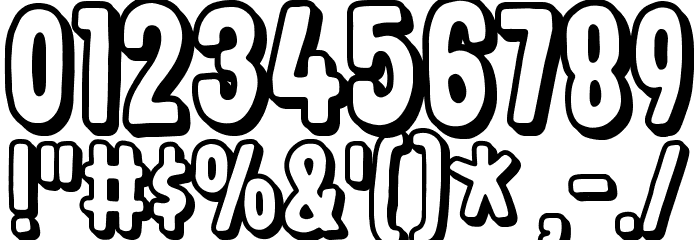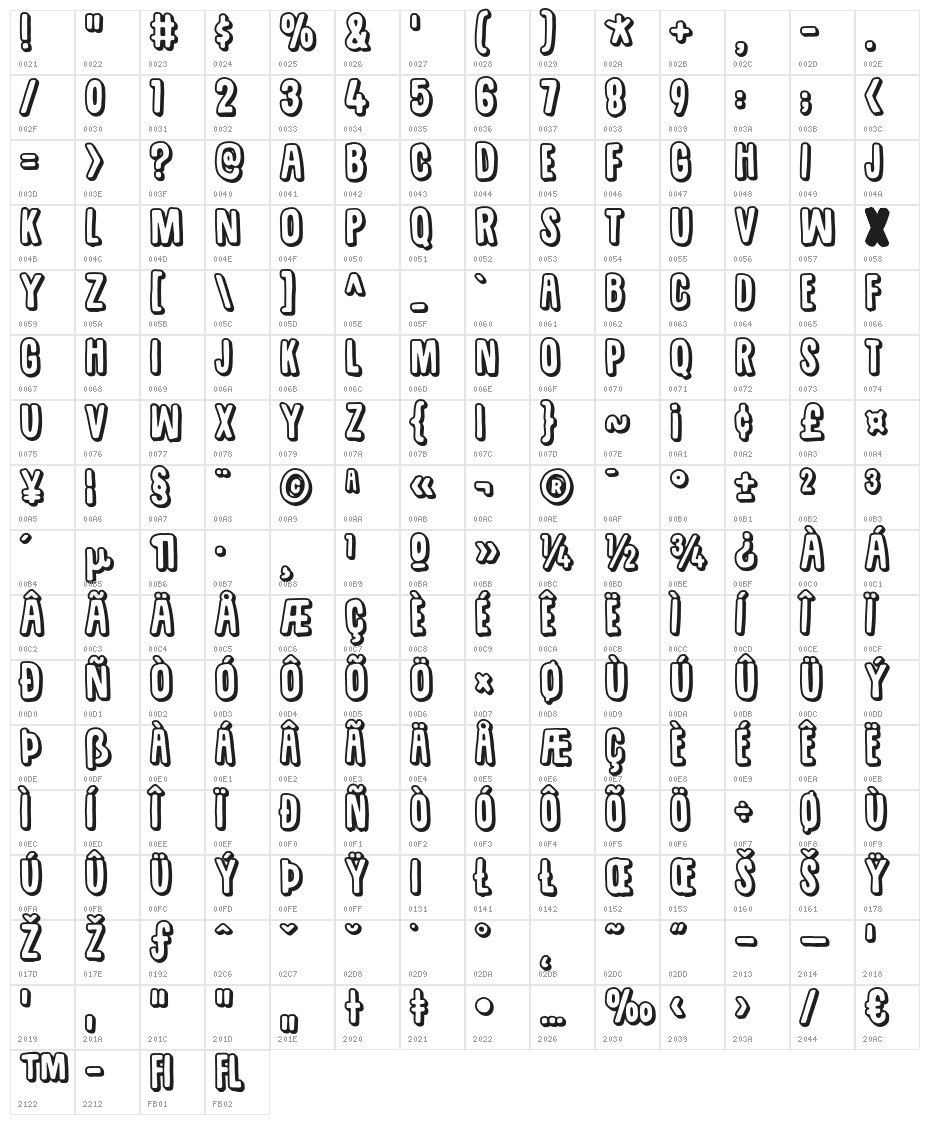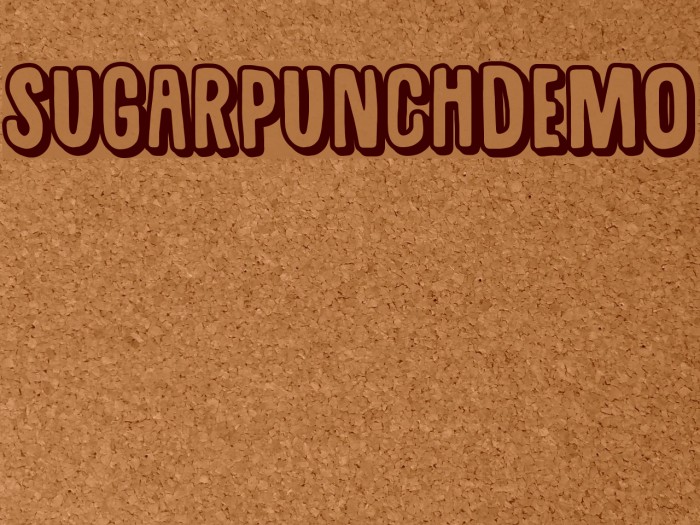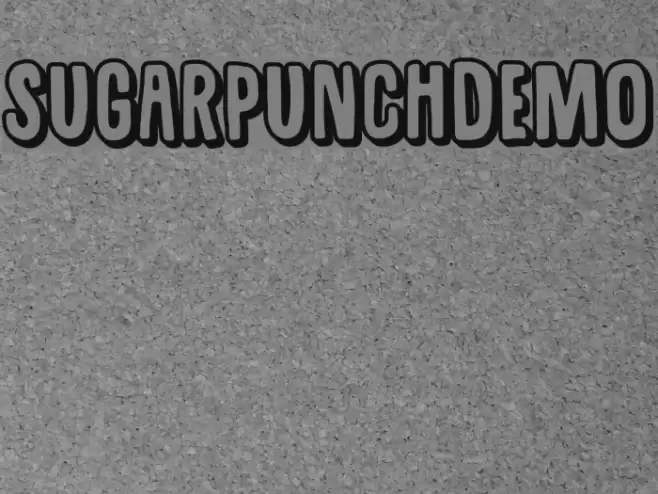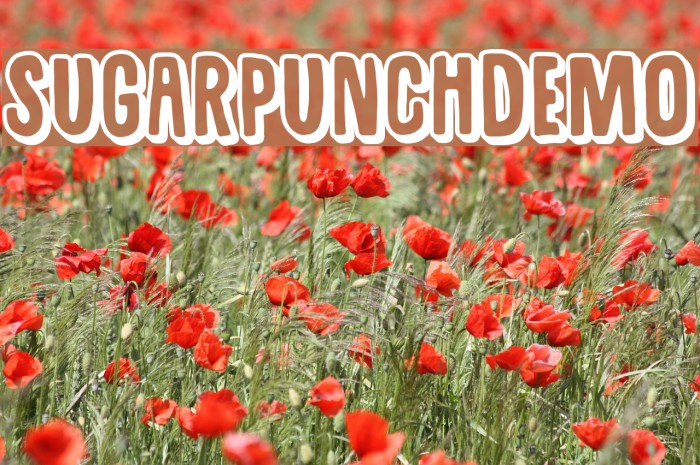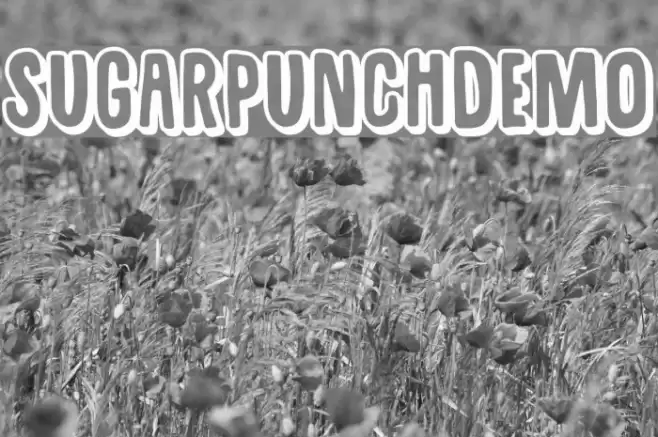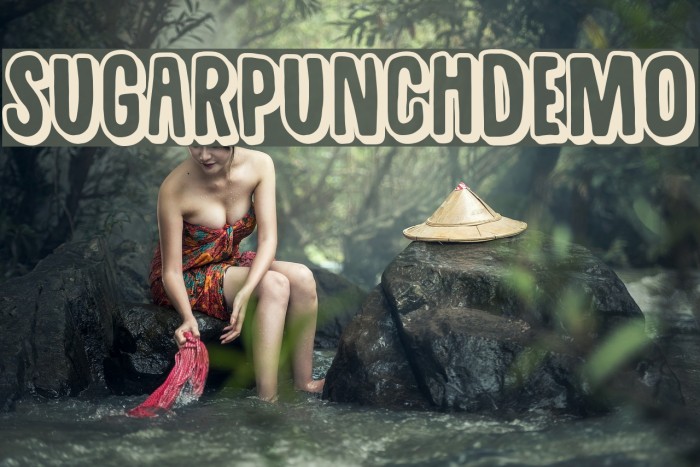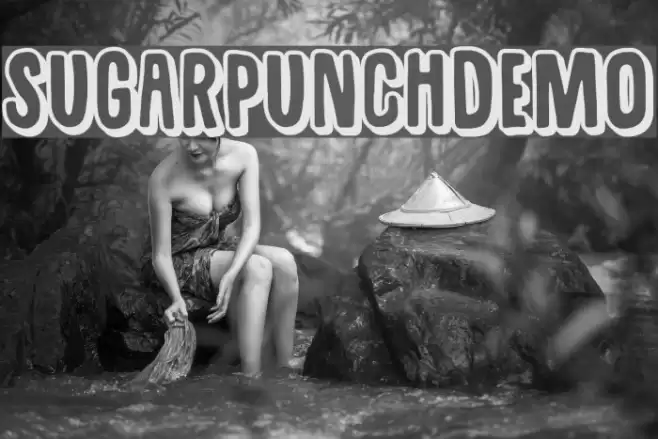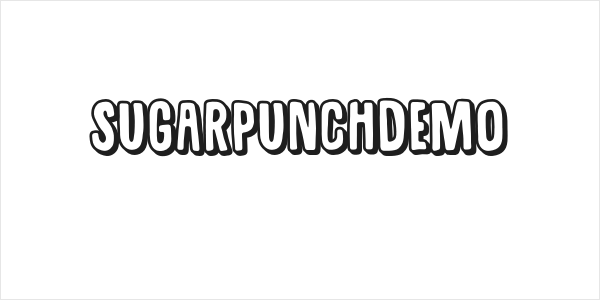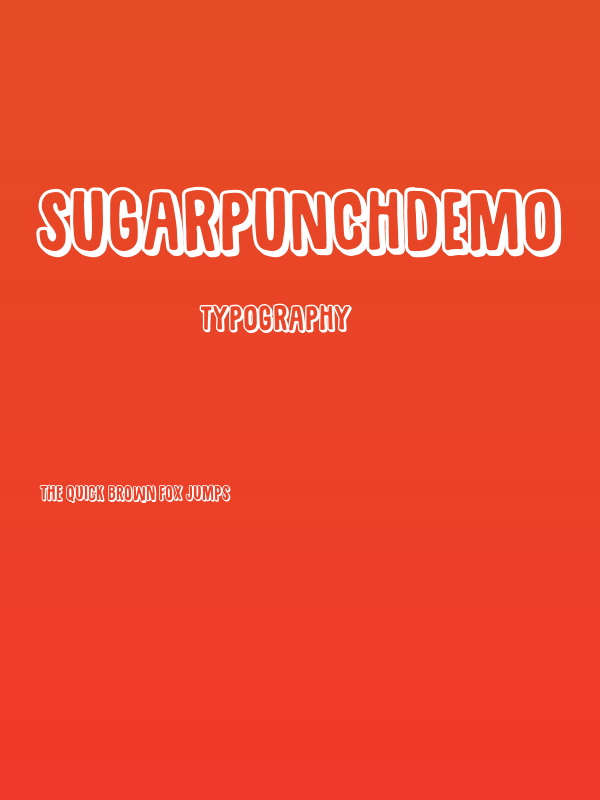
SugarpunchDEMO Font
SugarpunchDEMO Description
This font features bold, rounded characters with a playful and energetic style. The letters are outlined with a thick black border, giving them a cartoonish and eye-catching appearance. The characters are uniformly wide, providing a consistent and balanced look across all letters and numbers. The font includes both uppercase and lowercase letters, numerals, and a variety of special characters, making it versatile for different design needs. Its boldness and unique style make it stand out, perfect for projects that require a fun and lively touch.
| Overall Style | Playful, Cartoonish |
| Proposed Projects | Ideal for children's books, comic strips, playful branding, and eye-catching posters. |